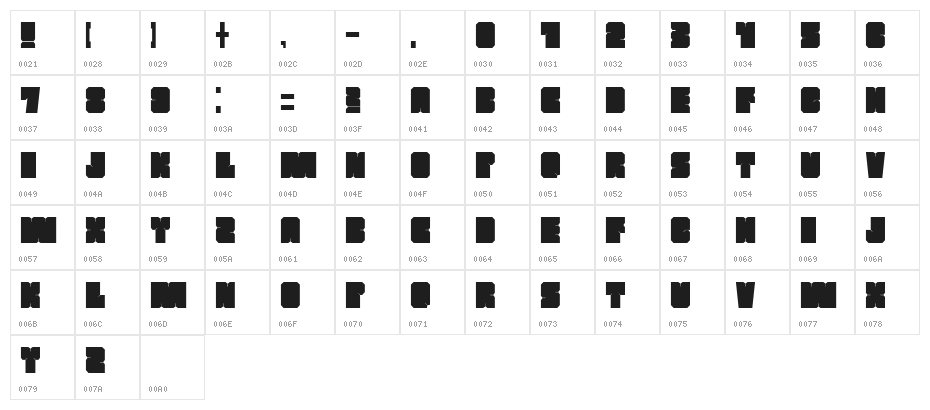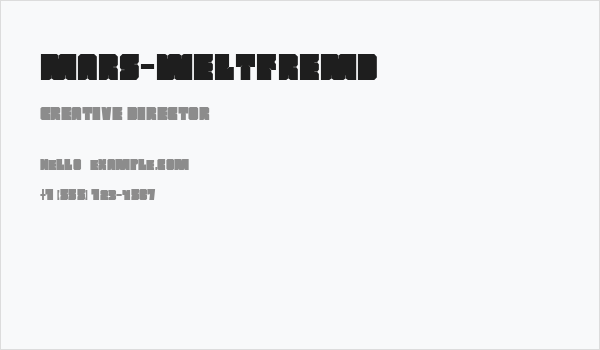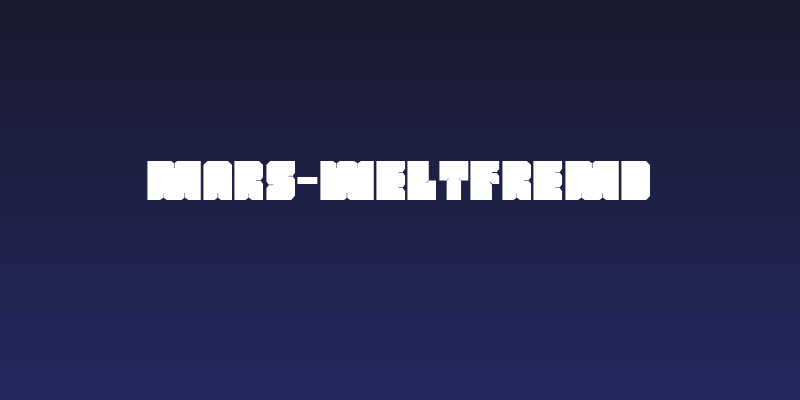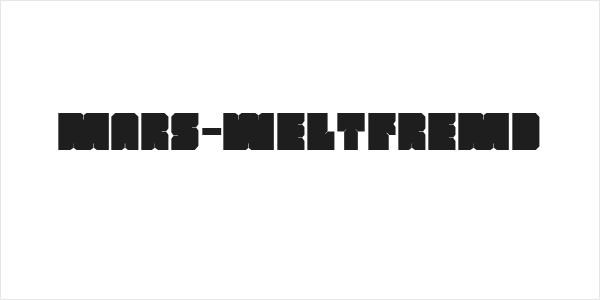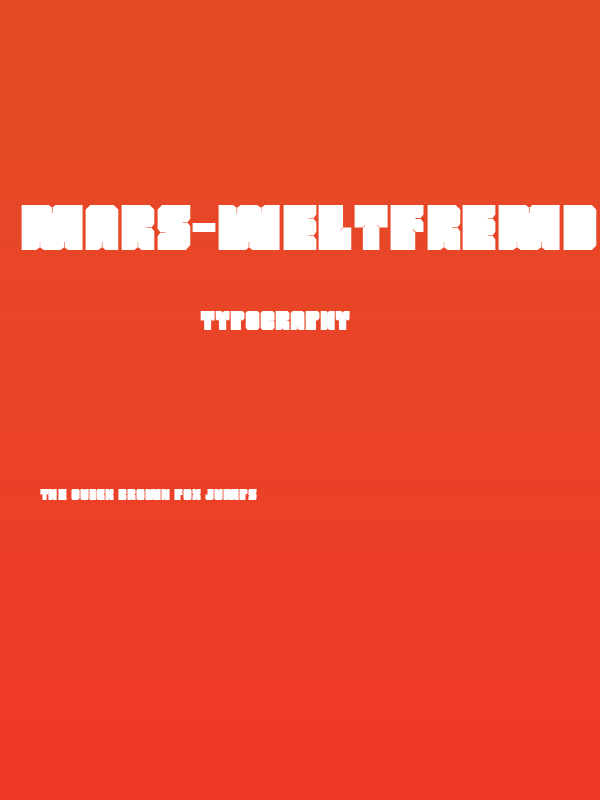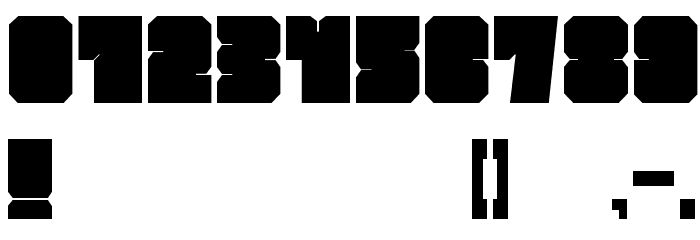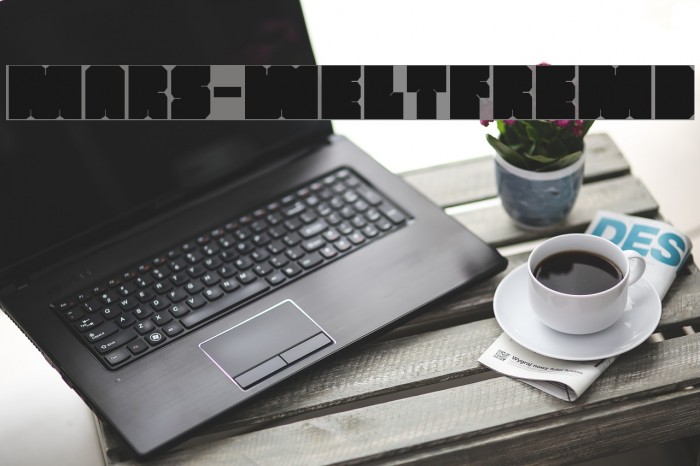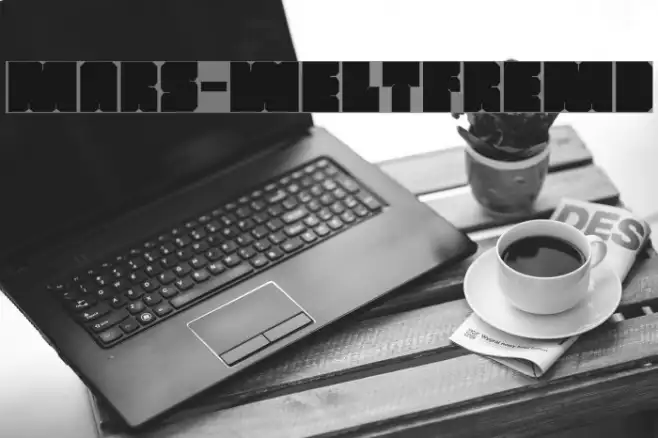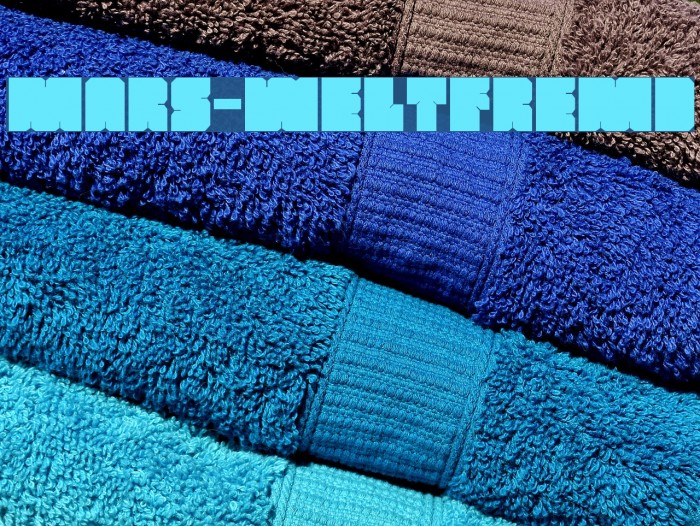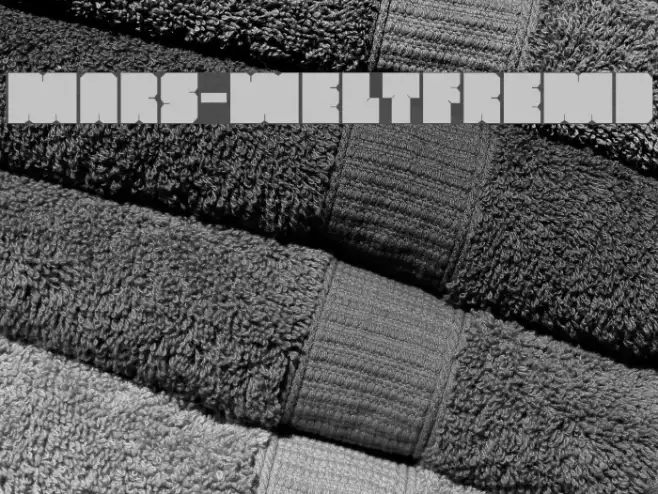
MARS-Weltfremd Font
MARS-Weltfremd Description
This font features a bold, geometric design with a strong presence. The characters are blocky and uniform, creating a sense of solidity and strength. Each letter and number is crafted with sharp angles and straight lines, giving the font a modern and industrial feel. The uppercase and lowercase letters maintain a consistent style, while the numerals and special characters integrate seamlessly into the overall design. The font's boldness makes it highly legible and impactful, suitable for attention-grabbing headlines and statements.
| Proposed Projects | Ideal for branding, posters, signage, and any project requiring a strong visual impact. |